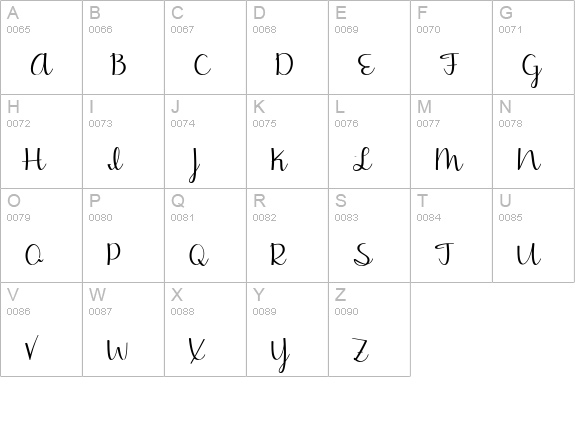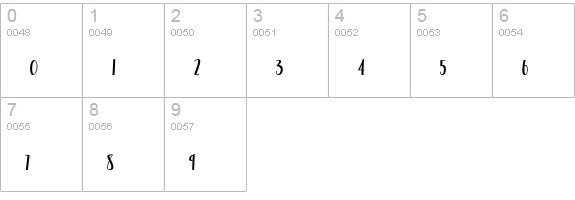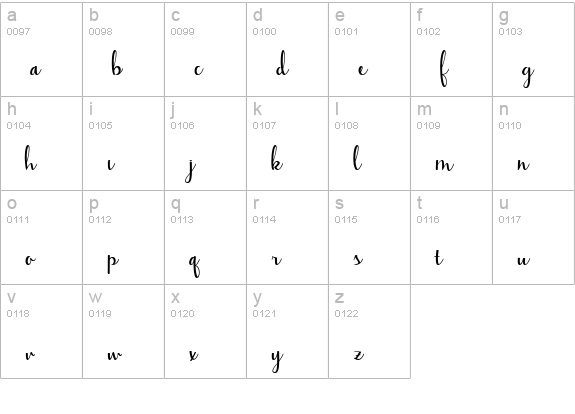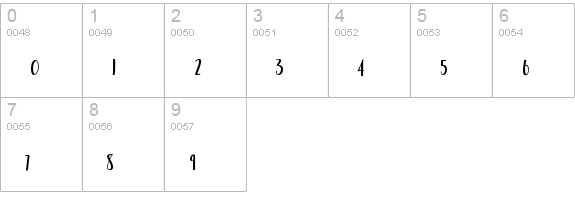
Jasmine Reminiscentse Bold Font Details
Jasmine Reminiscentse Bold is a strong, high-contrast variant in the Jasmine typeface family \xE2\x80\x94 well suited to headlines, attention-grabbing titles, and strong calls-to-action.
Introducing Jasmine Reminiscentse Bold font, a stunning display typeface that exudes elegance and sophistication. With its graceful curves and bold strokes, this font captures attention and adds a touch of flair to any project. Jasmine Reminiscentse Bold is perfect for creating eye-catching headlines, stylish logos, and memorable branding materials. Its unique design combines classic elements with a contemporary twist, making it versatile for a wide range of creative endeavors. This font is freely available to download at FontsMarket.com, providing an incredible opportunity for designers and enthusiasts alike to enhance their creative work without breaking the bank. Whether you're a professional graphic designer or a passionate hobbyist, Jasmine Reminiscentse Bold is a valuable addition to your font collection. With its generous selection of characters, including uppercase and lowercase letters, numbers, punctuation marks, and special symbols, this font offers endless possibilities for customization and personalization. Its smooth and consistent appearance ensures legibility across various mediums, from print to digital platforms. The timeless appeal of Jasmine Reminiscentse Bold font is bound to leave a lasting impression on your audience. Its boldness commands attention, while its delicate details add a touch of refinement. Whether you're designing for a luxurious brand, a fashion-forward magazine, or an upscale event, this font effortlessly elevates your design to new heights. So why wait? Download Jasmine Reminiscentse Bold font today from FontsMarket.com and unleash your creativity with a typeface that combines beauty, versatility, and accessibility. Enhance your projects and captivate your viewers with this remarkable font that is now just a click away.